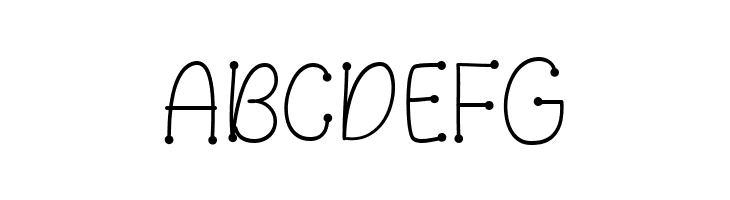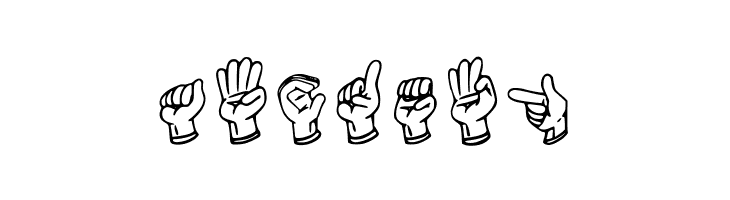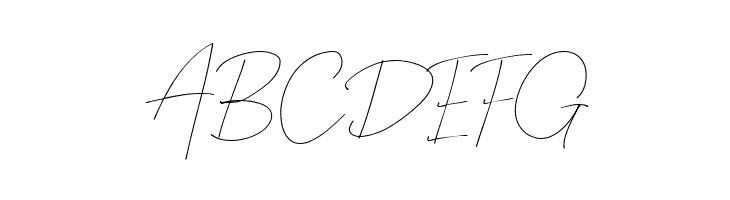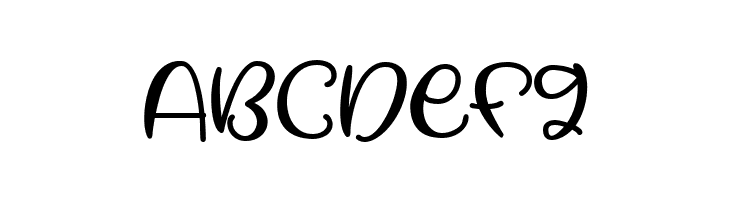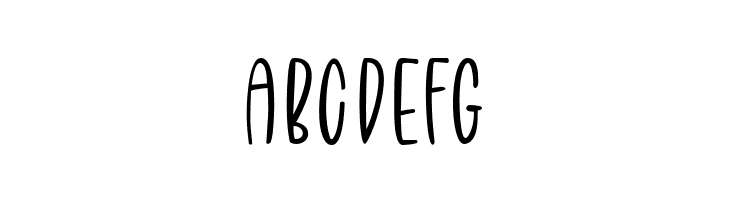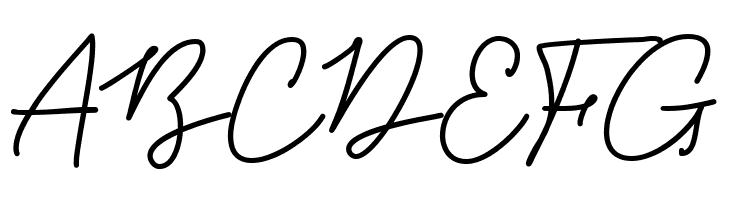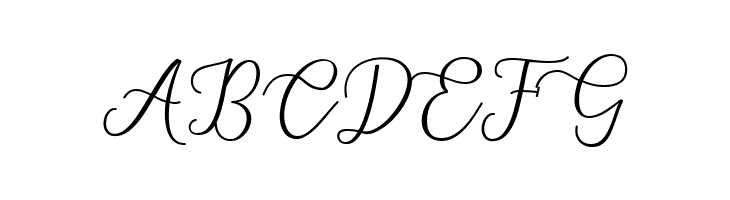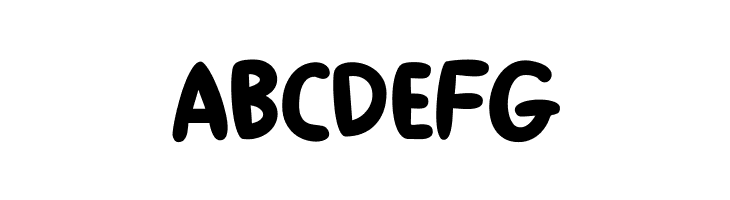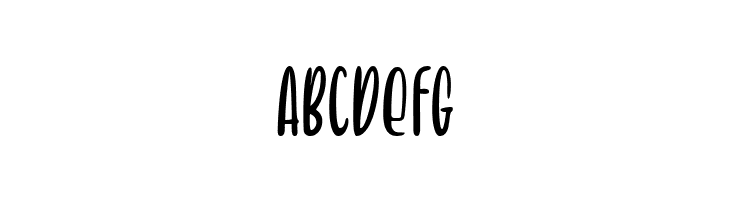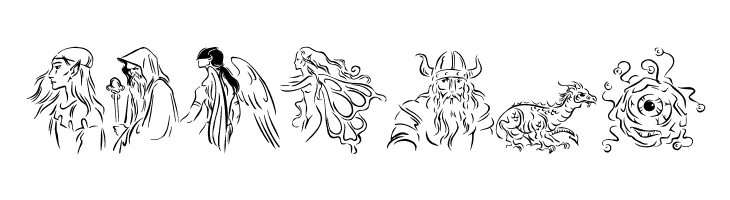
A bold, angular serif font with a modern and edgy style.
A hand-drawn, textured font with dynamic, expressive strokes.
A gothic, decorative font with thorn-like embellishments and dramatic flair.
An organic, vine-like font with intricate, thorny details.
A modern, rounded sans-serif font with excellent readability.
A geometric, modern font with consistent stroke width and sharp angles.
A diverse collection of detailed silhouettes depicting various scenes and characters.
A bold, slanted font with a playful, handwritten style.
A bold, playful font with a rope-like design and consistent stroke width.
A bold, playful font with rounded, hand-drawn characters.
A playful, dot-adorned font with a whimsical, hand-drawn style.
A bold, playful font with rounded, hand-drawn characters.
A font depicting the alphabet and numbers through hand signs, inspired by sign language.
A playful font depicting the ASL alphabet with cartoon-style hand gestures.
A bold, playful handwritten font with rounded strokes and a casual style.
A bold, distressed font with a vintage industrial style.
A playful, casual handwritten font with smooth, rounded strokes.
A delicate and elegant handwritten script with flowing, interconnected letterforms.
A playful, whimsical font with flowing, cursive-like strokes and unique character shapes.
A playful, handwritten font with a dynamic and artistic flair.
A playful, handwritten font with tall, narrow letters and a casual style.
Elegant, flowing script font with a handwritten style.
A cursive script font with a graceful, flowing style.
Bold, rounded, playful sans-serif with a hand-drawn style.
A decorative Halloween-themed font featuring cartoonish monster illustrations.
A decorative font featuring silhouette figures in various poses.